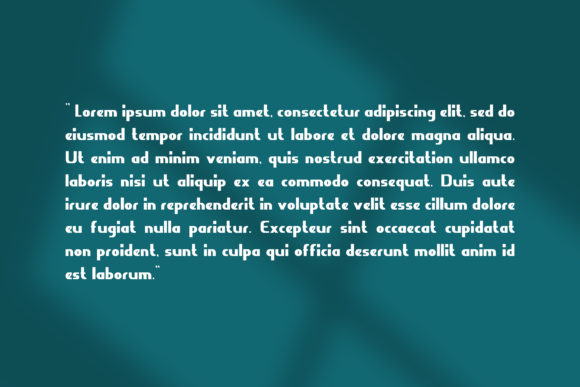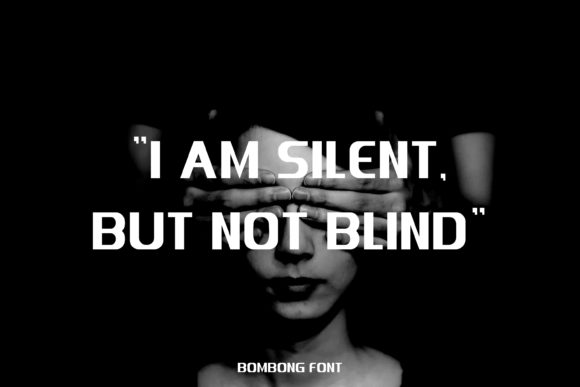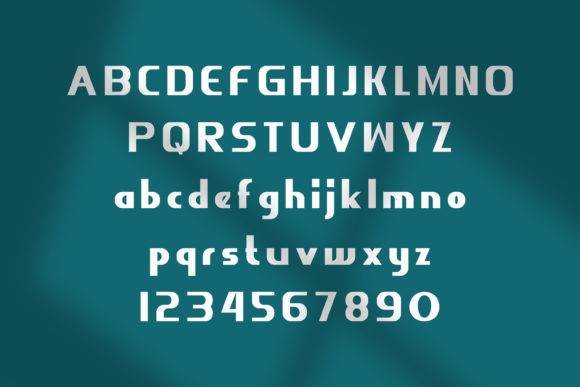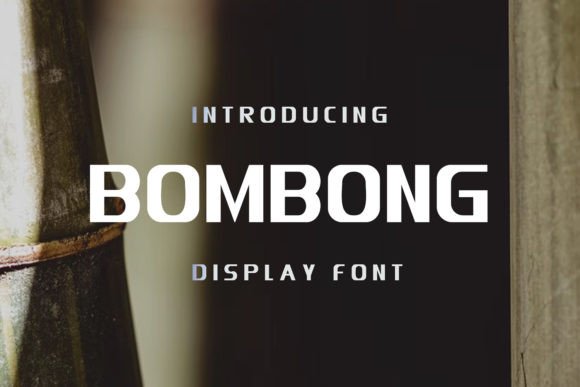
The Ultimate Guide to Bombong Font: A Bold and Versatile Display Font
I’ll never forget the time I was working on a project for a client who needed a bold and eye-catching font to grab the audience’s attention. I had spent hours scouring the internet for the perfect font, but nothing seemed quite right. That was until I stumbled upon Bombong Font. With its thick, bold letters and versatile design, it was exactly what I needed to take my project to the next level. In this article, we’ll dive into the world of Bombong Font, exploring its features, how to use it, and what makes it so special.
A Personal Review of Bombong Font
So, what do I love about Bombong Font? Here are a few things that make it stand out:
- ✨ Bold and eye-catching: Bombong Font is perfect for making a statement. Its thick letters demand attention and are sure to grab the audience’s eye.
- ✅ Versatile: Whether you’re working on a formal or informal design, Bombong Font fits right in. It’s perfect for a wide range of projects, from brochures and posters to social media graphics and more.
- 🎉 Easy to read: Despite its bold design, Bombong Font is surprisingly easy to read, even at smaller sizes.
Of course, no font is perfect, and Bombong Font has a few small quirks:
- 🤔 Limited use in body text: While Bombong Font is amazing for headlines and titles, it’s not the best choice for body text. Its bold design can be overwhelming for longer blocks of text.
- ⚠️ May not be suitable for all languages: As with any font, Bombong Font may not have the necessary glyphs or support for all languages.
The Backstory of Bombong Font
Bombong Font was designed by a team of typographers who wanted to create a bold and versatile font that could be used for a wide range of designs. Inspired by classic bold fonts, Bombong Font features a unique and modern design that’s perfect for making a statement.
- Q: What type of designs is Bombong Font best suited for?
- A: Bombong Font is perfect for bold and eye-catching designs, such as posters, social media graphics, and headlines.
- Q: Does Bombong Font support OpenType features?
- A: Yes, Bombong Font supports OpenType features, including glyphs and stylistic alternates.